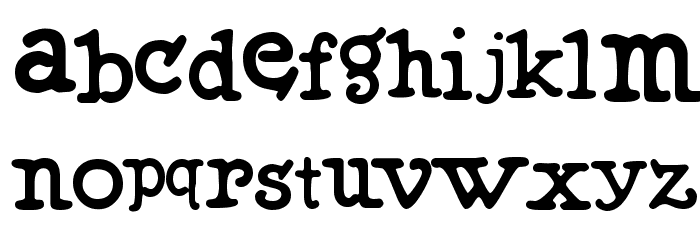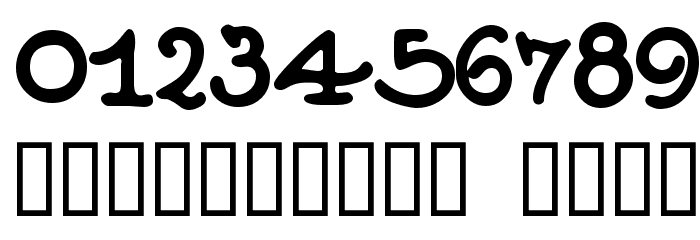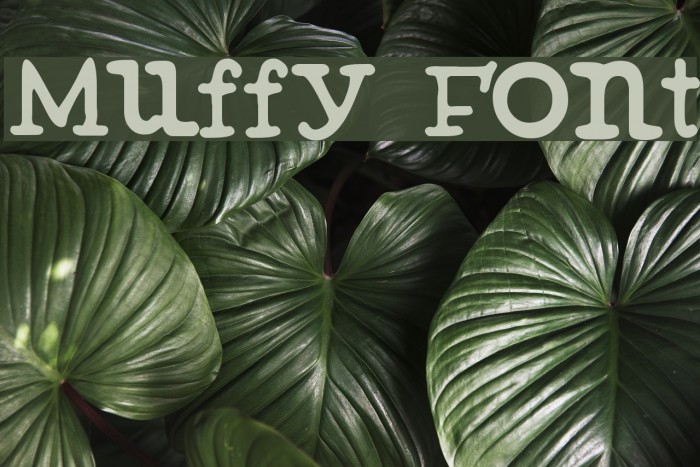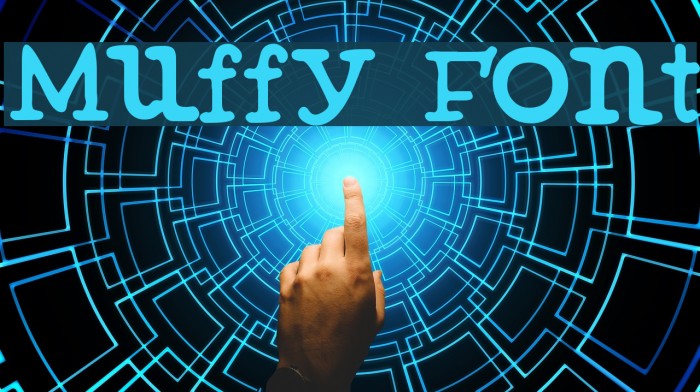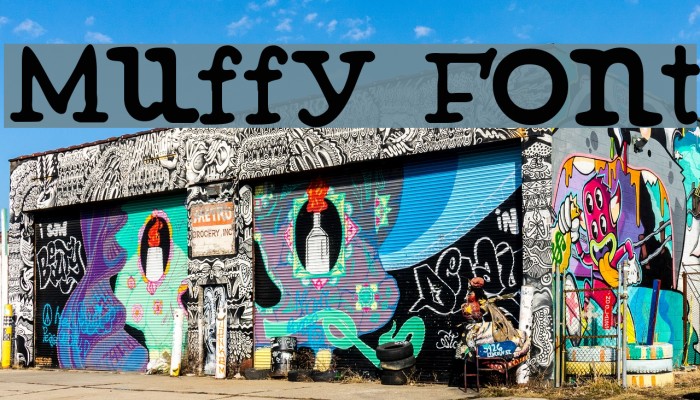
Muffy Font
This font features a playful and bold design with rounded edges and a whimsical style. The characters exhibit a unique blend of thick and thin strokes, creating a lively and dynamic appearance. The uppercase letters are slightly wider, while the lowercase letters maintain a consistent height, enhancing readability. The numbers and special characters follow the same playful aesthetic, making them stand out. This font's distinct personality makes it ideal for creative and fun projects.
A playful and bold font with rounded edges and a whimsical style.
- Proposed Projects: Ideal for children's books, playful branding, posters, and creative invitations.
- Overall Style: Playful